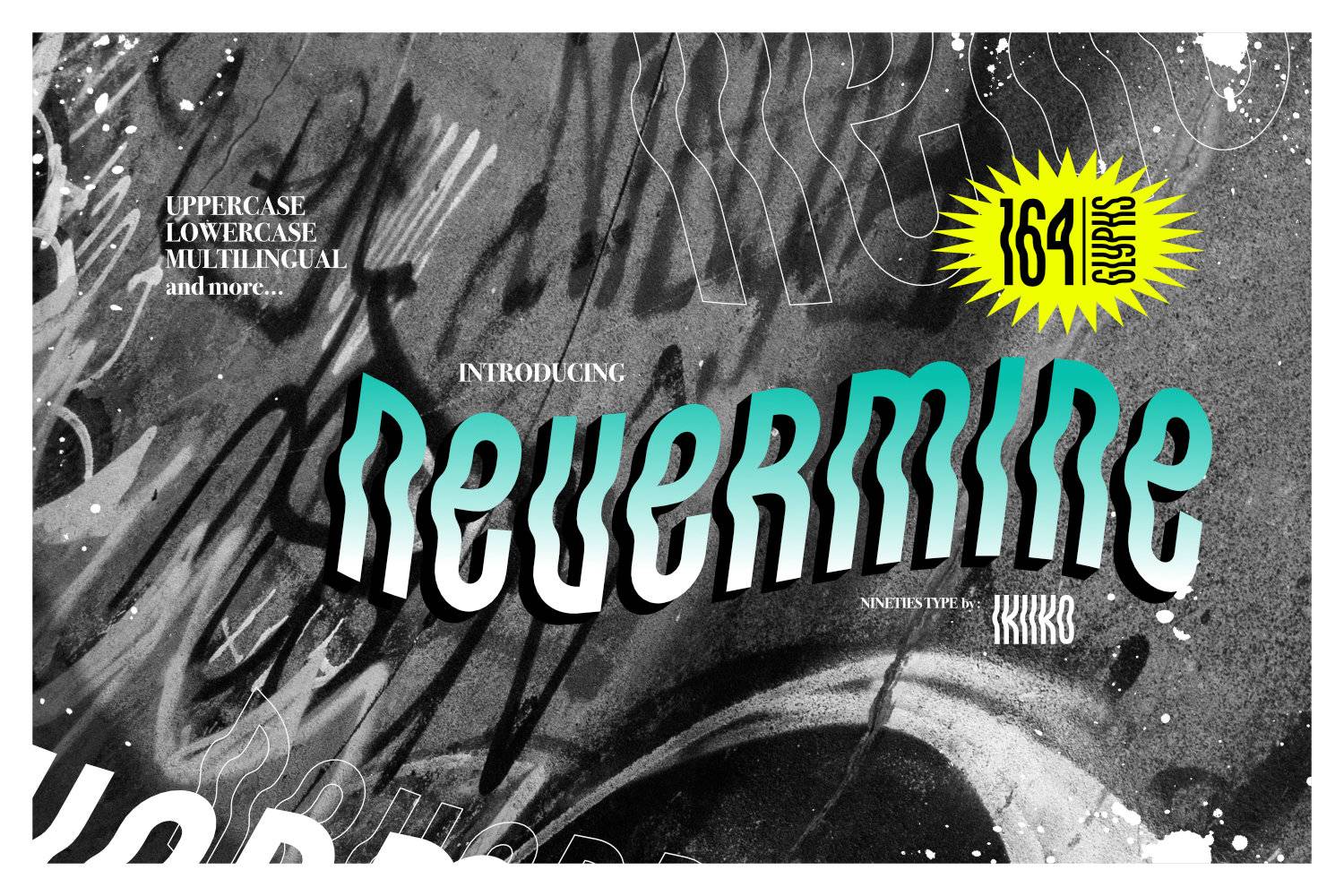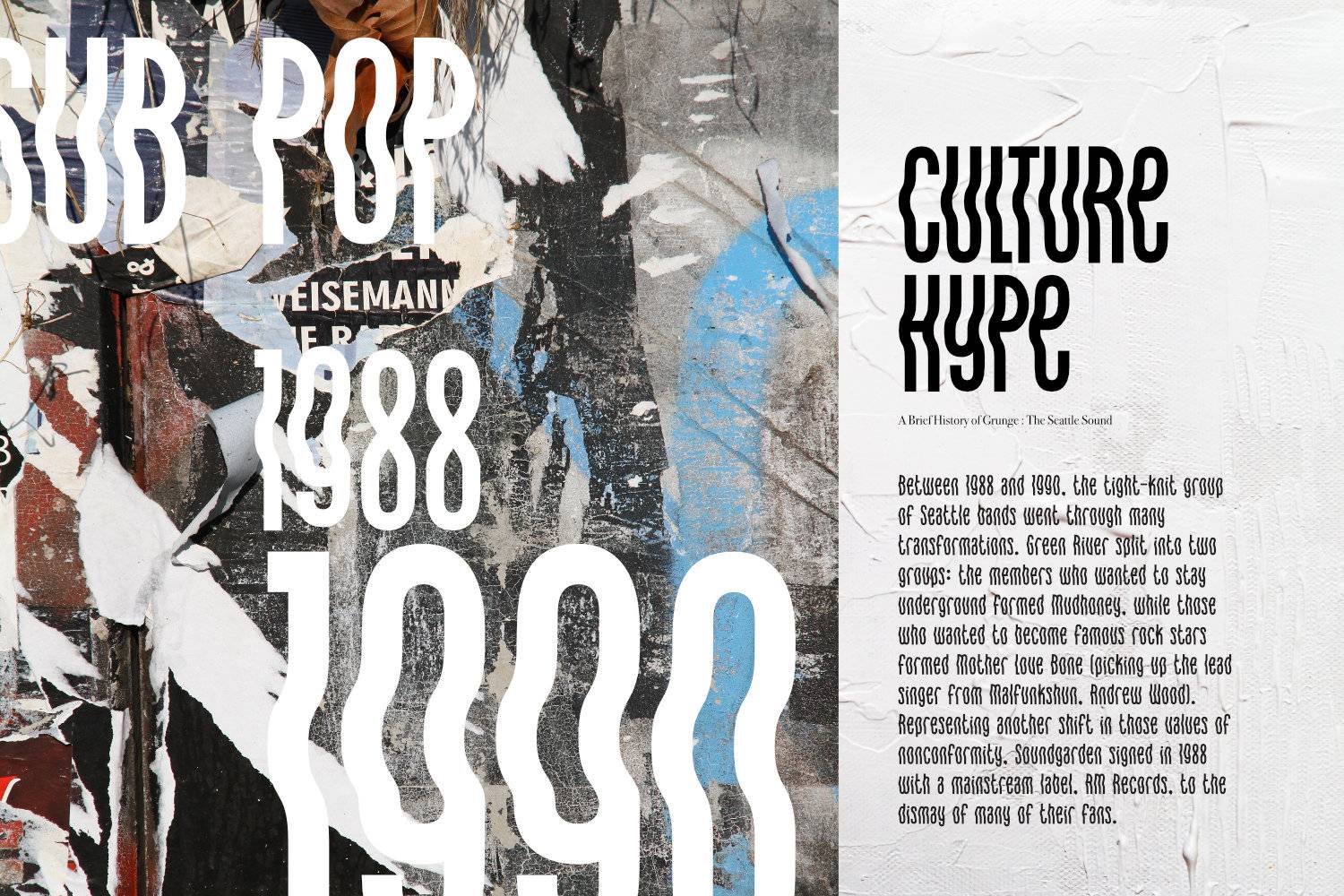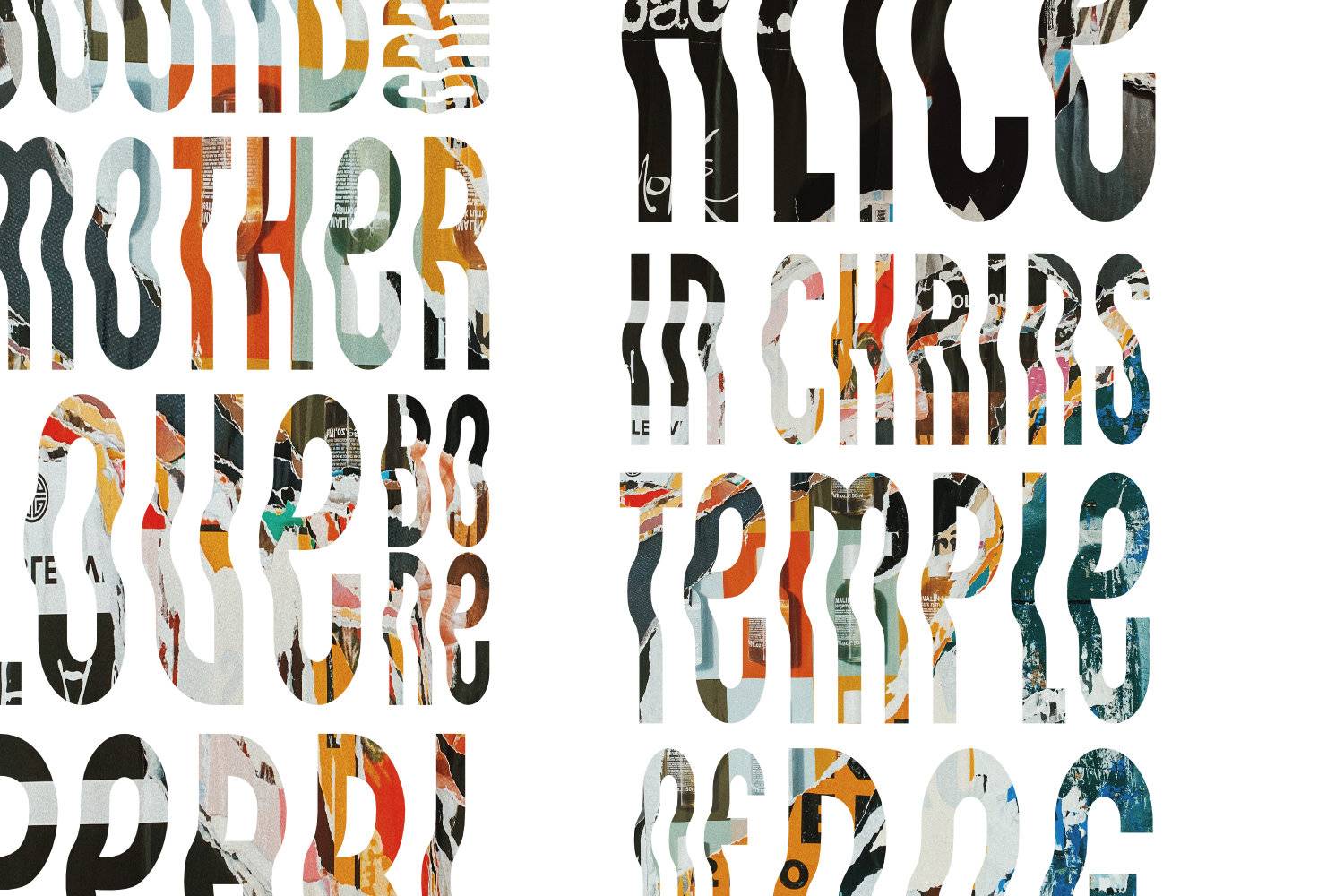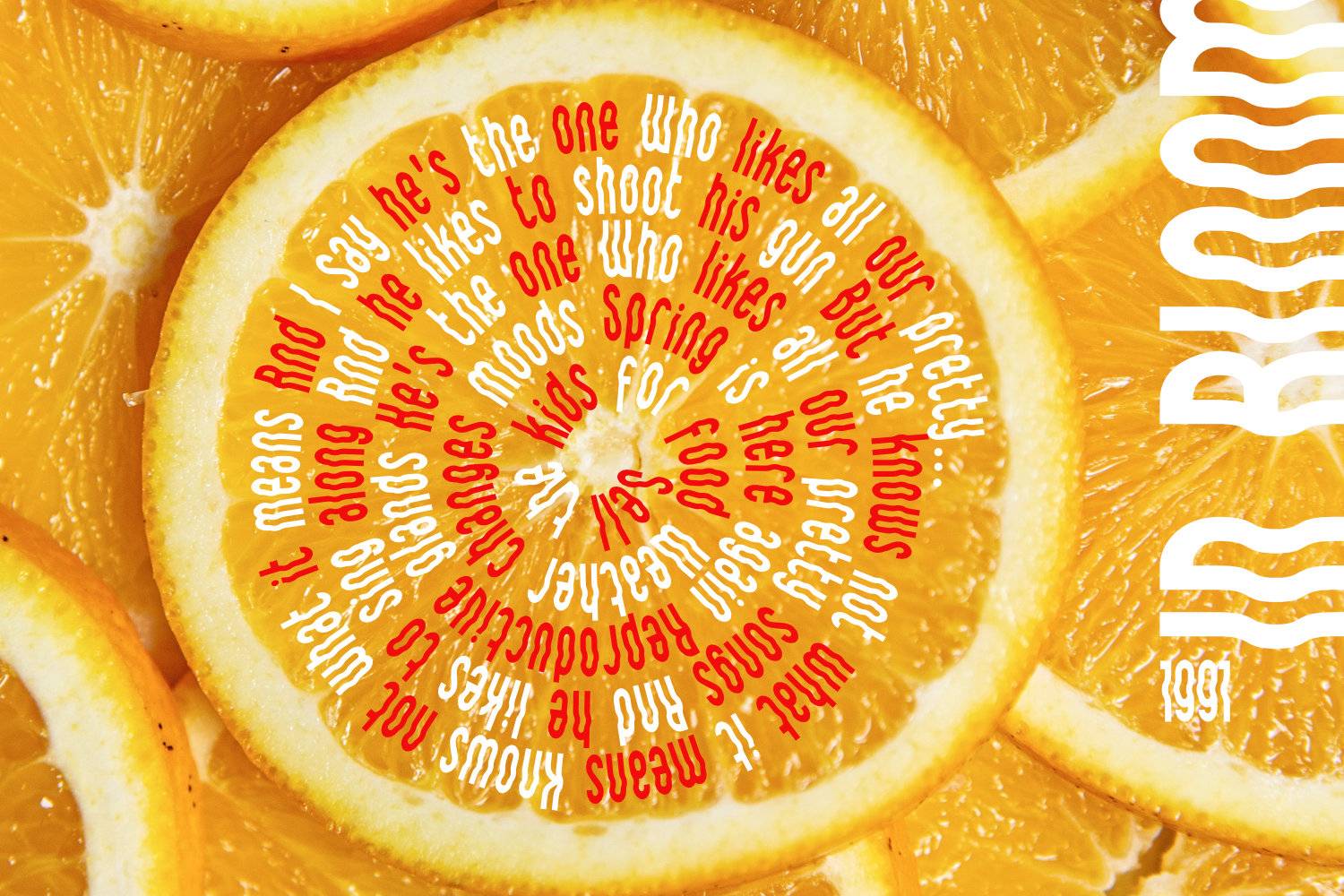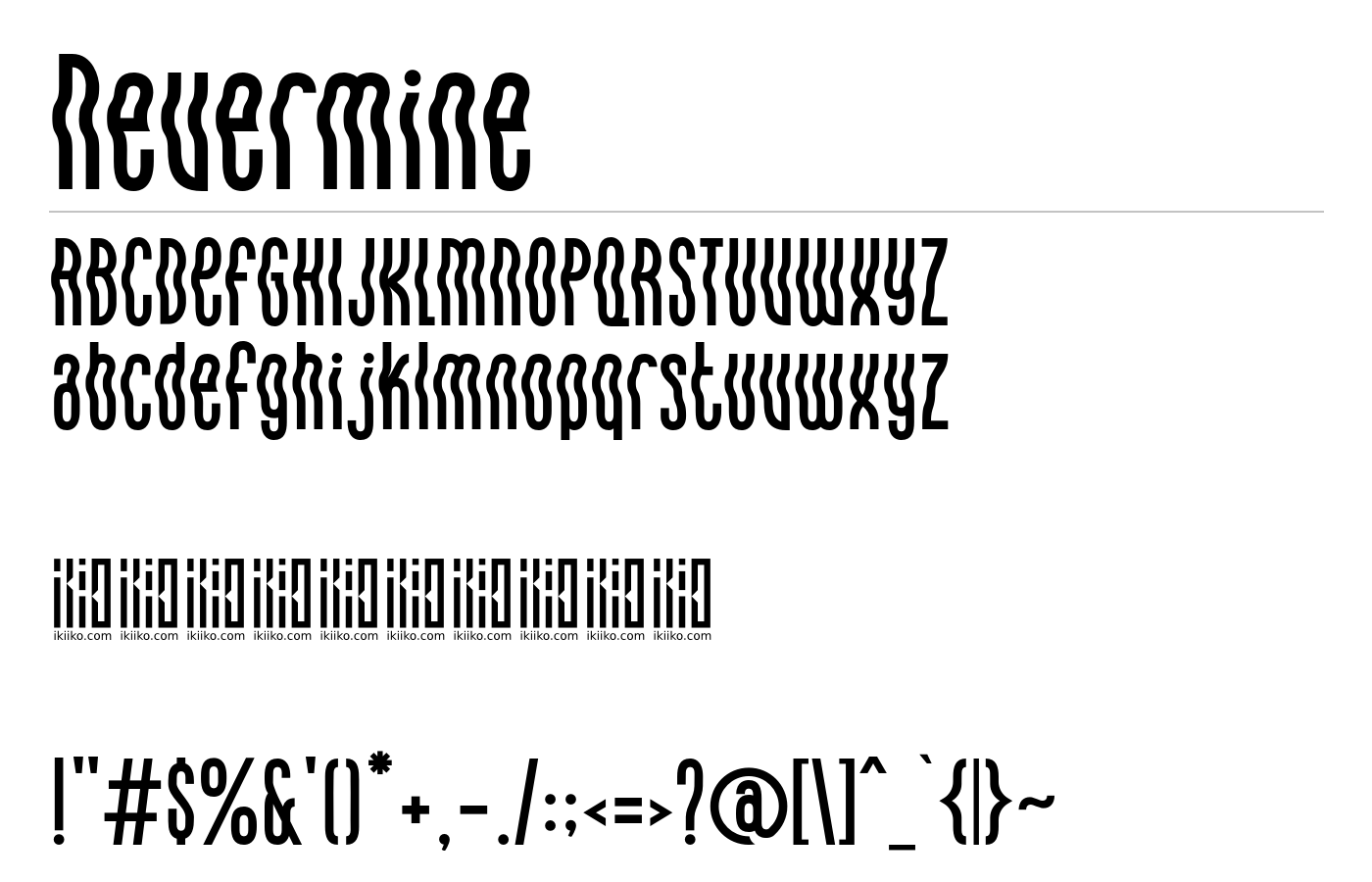
Nevermine is a tall, narrow sans serif font with a modern, slightly condensed style that creates a striking vertical rhythm. Its uniform stroke weight and distinctive, almost geometric letterforms give it a futuristic, edgy character ideal for bold headlines and contemporary branding. This font works best for eye-catching designs where a unique and compact look is desired, such as posters, logos, and fashion-related projects.
| Font family | Nevermine Font |
| Designer | Andhika Pradana, Wahyu Eka Prasetya |